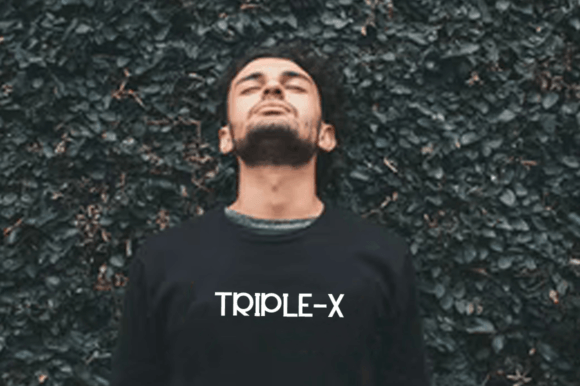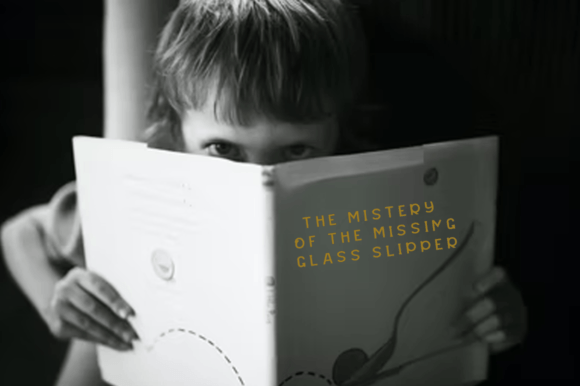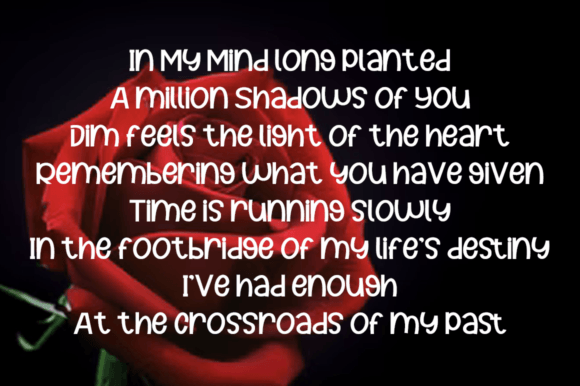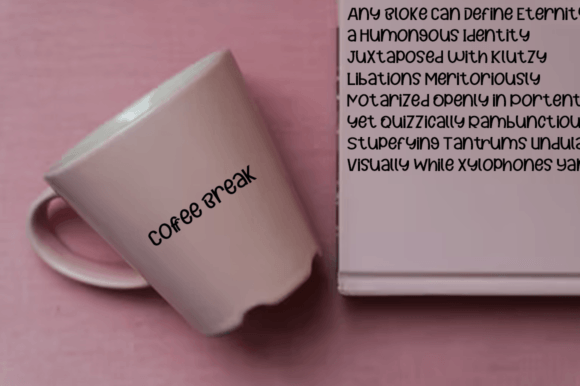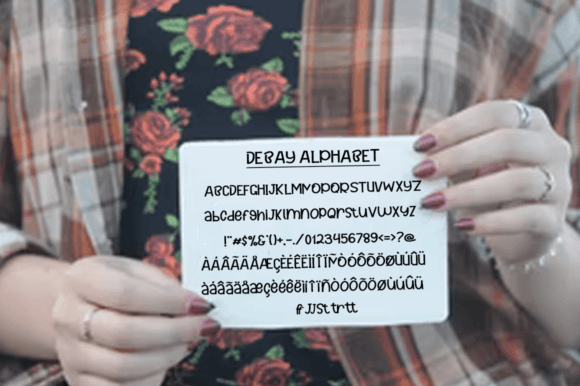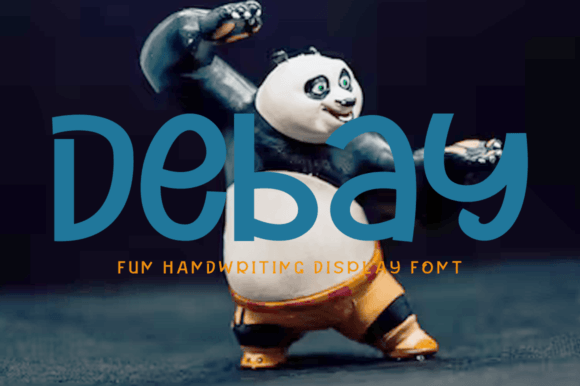
Introducing Debay Font: The Perfect Blend of Cute and Modern Calligraphy
Are you a designer or crafter looking for a font that adds a touch of casual and modern calligraphy to your projects? Look no further than Debay Font! This adorable display font is perfect for any project you wish to create, and it’s sure to become your new favorite in no time.
What is Debay Font?
Debay Font is a cute and modern display font that’s designed to add a touch of elegance and sophistication to your designs. With its unique blend of casual and modern calligraphy, this font is perfect for designers and crafters who want to create stunning visual content that stands out from the crowd.
Key Features of Debay Font
- Cute and Modern Design: Debay Font features a unique and adorable design that’s perfect for creating visually appealing content.
- Display Font: This font is specifically designed as a display font, making it perfect for headlines, titles, and other prominent text elements.
- Casual and Modern Calligraphy: Debay Font combines the best of casual and modern calligraphy, creating a unique and stylish look that’s perfect for a wide range of projects.
- Easy to Read: Despite its decorative nature, Debay Font is easy to read, making it perfect for use in body text, headings, and titles.
Why Choose Debay Font?
So, why should you choose Debay Font for your next project? Here are just a few reasons why this font stands out from the crowd:
- Uniqueness: Debay Font offers a unique and distinctive look that’s sure to set your designs apart from the competition.
- Versatility: This font is perfect for a wide range of projects, from branding and advertising to packaging and digital media.
- High-Quality Design: This font is designed with high-quality and attention to detail, ensuring that it looks great in any context.
- Pair it with Other Fonts: Debay Font looks great when paired with other fonts, so don’t be afraid to experiment with different combinations.
- Use it for Headings and Titles: This font is perfect for headings and titles, so use it to add a touch of elegance and sophistication to your designs.
- Experiment with Colors and Textures: Debay Font looks great in a variety of colors and textures, so don’t be afraid to get creative and try out different effects.
Who is Debay Font for?
Debay Font is perfect for a wide range of designers and crafters, including:
- Graphic Designers: If you’re a graphic designer looking for a unique and stylish font to add to your collection, Debay Font is a great choice.
- Branding and Advertising Agencies: This font is perfect for branding and advertising agencies looking for a way to add a touch of elegance and sophistication to their designs.
- Crafters and Makers: If you’re a crafter or maker looking for a font to use in your DIY projects, Debay Font is a great choice.
- Digital Media Creators: This font is perfect for digital media creators looking for a way to add a touch of style and sophistication to their content.
In conclusion, Debay Font is a unique and stylish display font that’s perfect for designers and crafters looking to add a touch of casual and modern calligraphy to their projects. With its cute and modern design, ease of use, and high-quality construction, this font is sure to become a favorite in no time. So why wait? Add Debay Font to your collection today and start creating stunning visual content that stands out from the crowd!